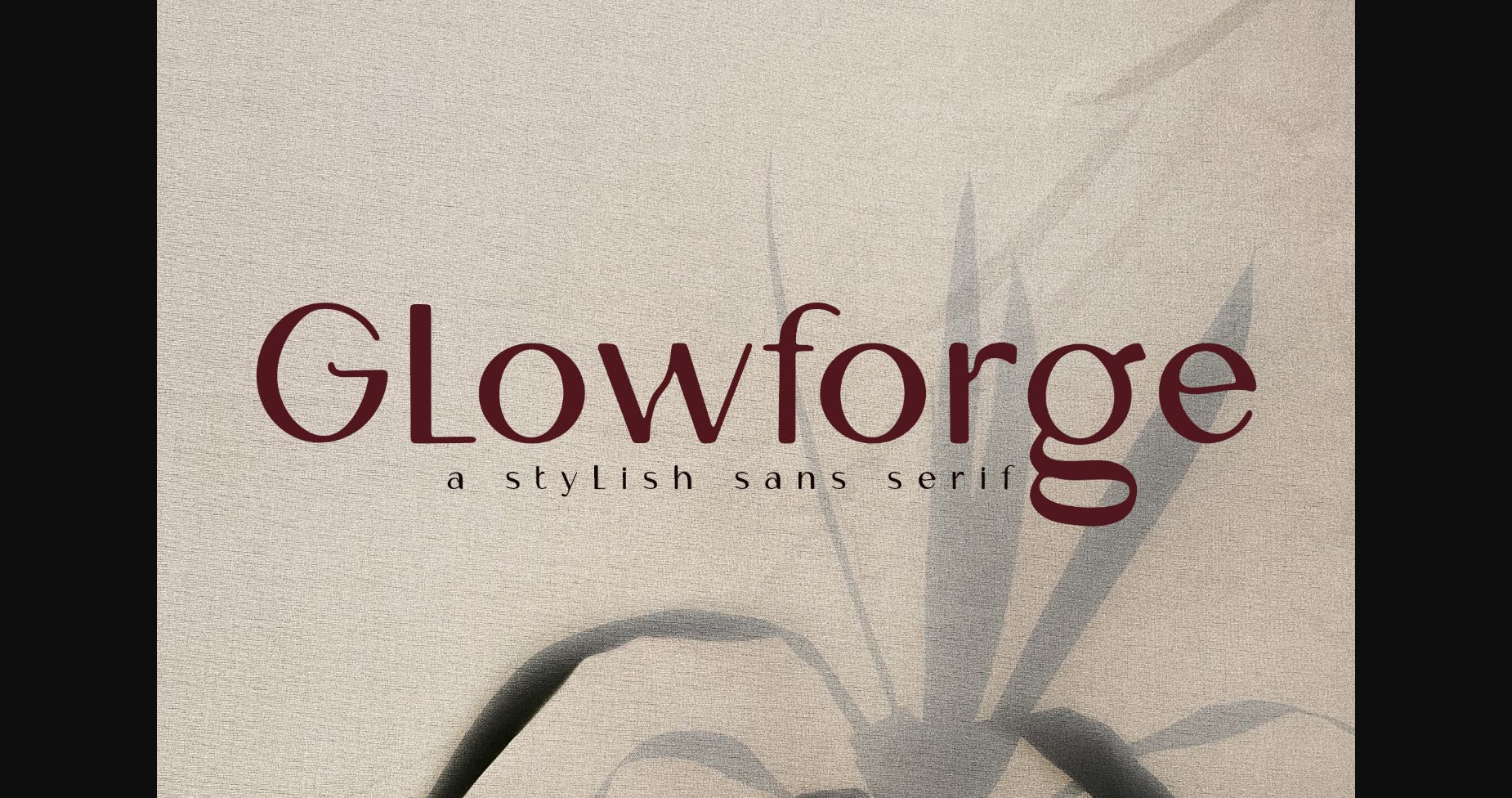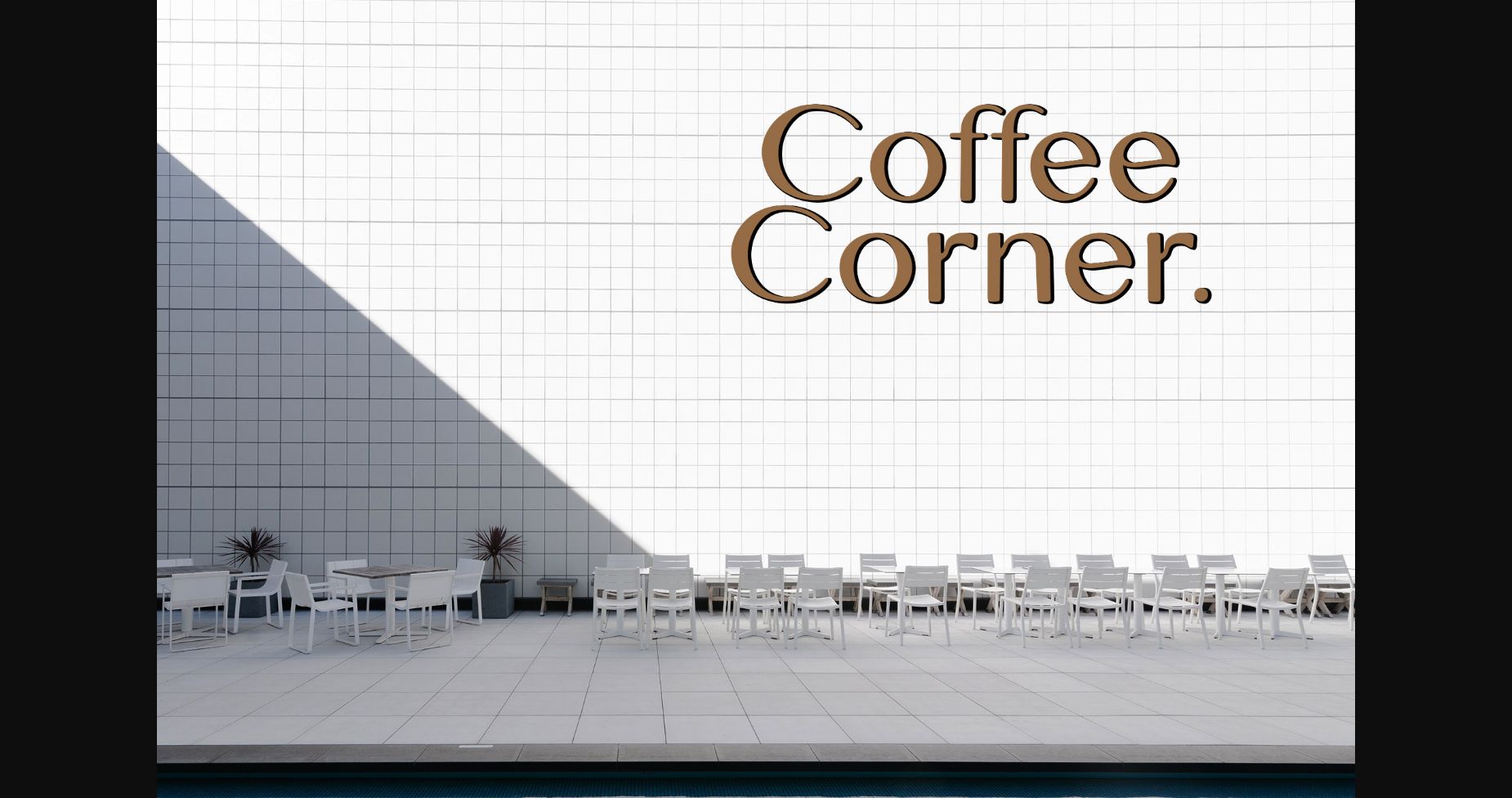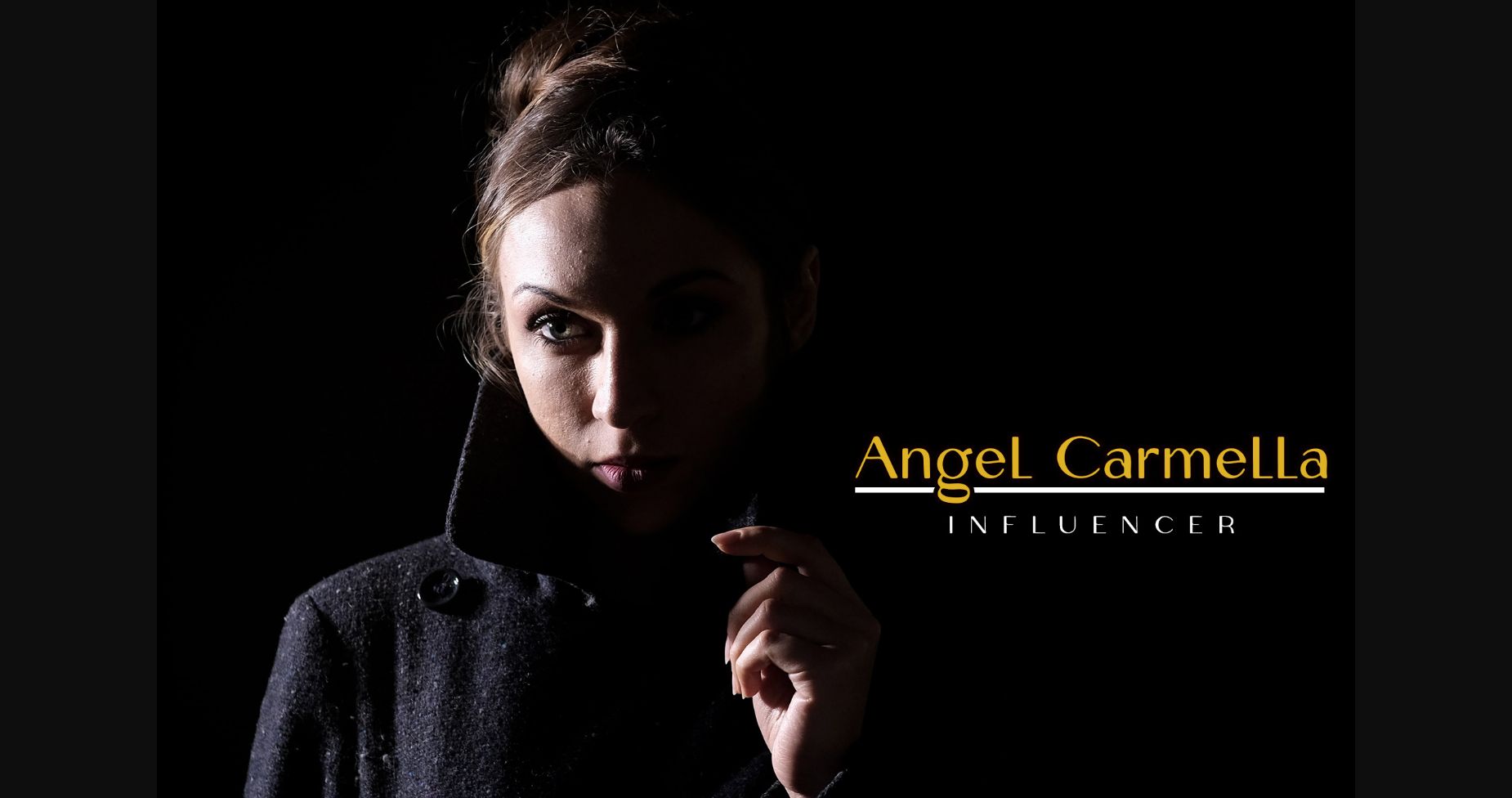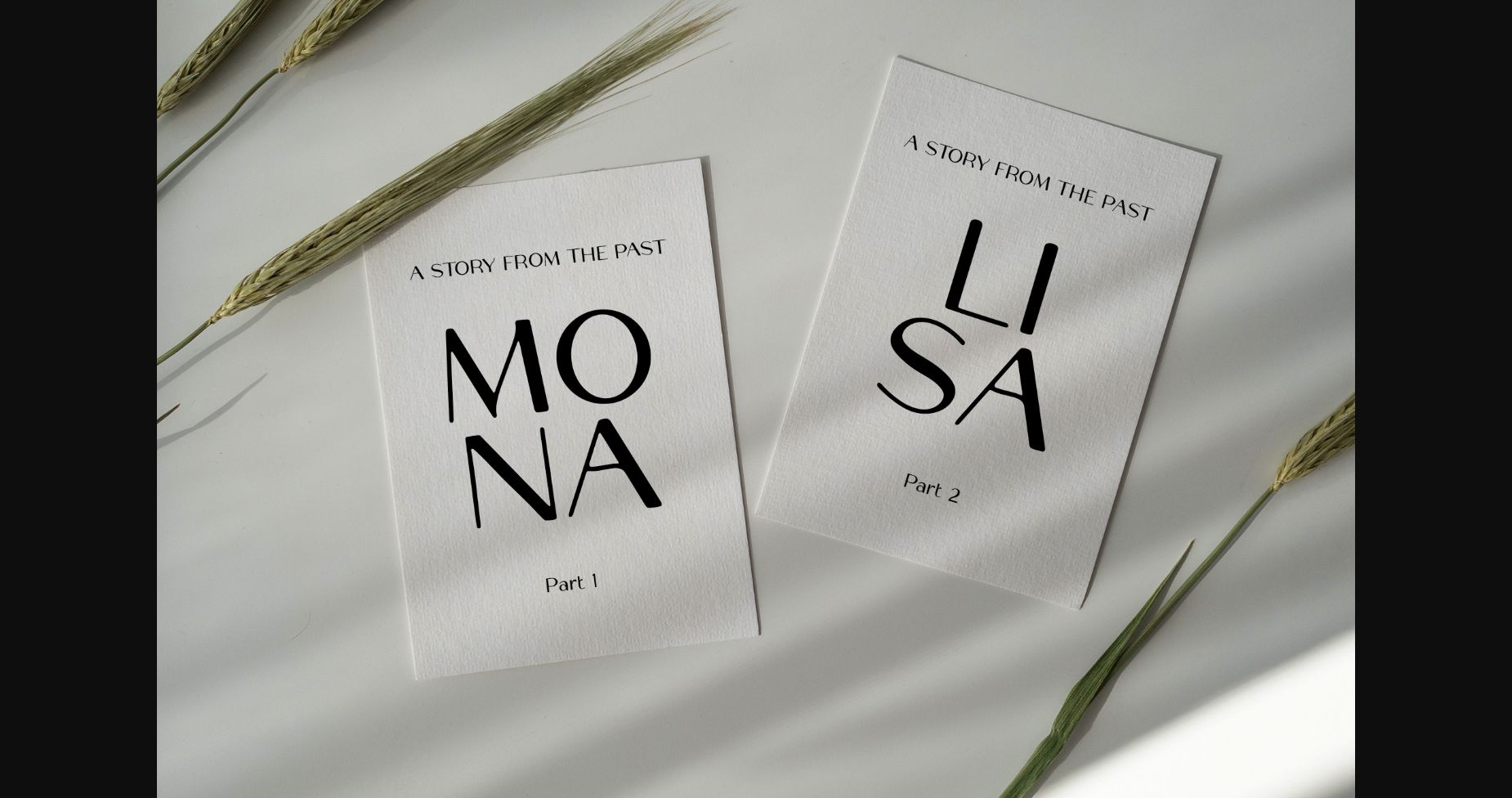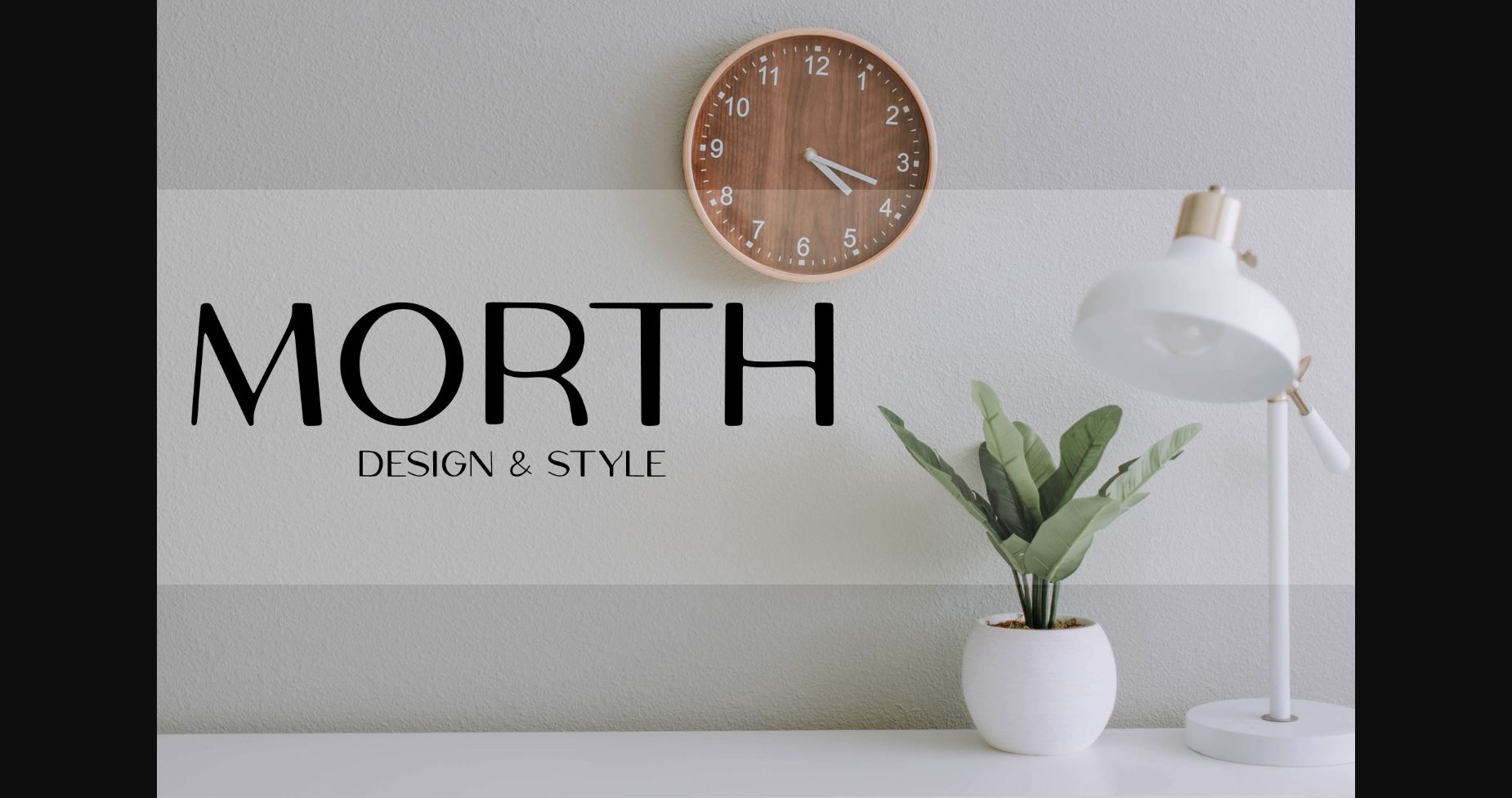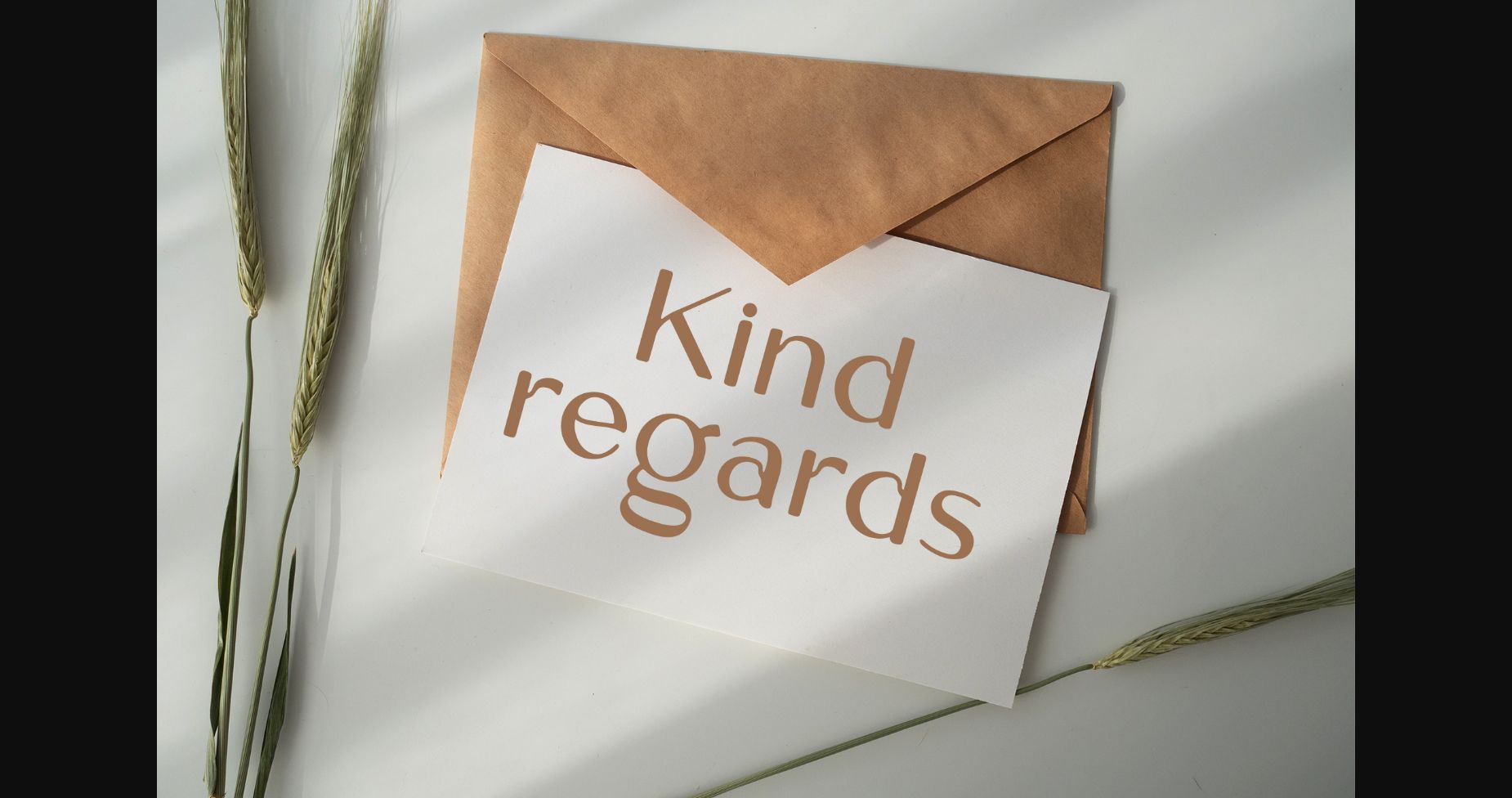
HomeSans Serif FontsGlowforge Font Sans Serif Fonts Glowforge Font FacebookXPinterestWhatsApp 1 of 9 ... Glowforge Font Poster 2... Glowforge Font Poster 3... Glowforge Font Poster 4... Glowforge Font Poster 5... Glowforge Font Poster 6... Glowforge Font Poster 7... Glowforge Font Poster 8... Glowforge Font Poster 9... About Glowforge Font Glowforge is a stylish and simple lettered sans serif font. Not too thin and not too thick, balanced and varied, Glowforge was designed to enhance the beauty of your projects. DOWNLOAD NOW People also explored After Story Font Sweet Christmas Font Sublimation Font Coconut Milk Font J-LOG Starkwood Slab Font Raster Font Milena Font Gematype Font Register Wide B 483 0 TagsGlowforge Font Previous articleSelfnode FontNext articleMs Dotty Font LEAVE A REPLY Cancel reply Comment: Please enter your comment! Name:* Please enter your name here Email:* You have entered an incorrect email address! Please enter your email address here Website: Save my name, email, and website in this browser for the next time I comment. Personal Use Free Stone Garden Personal Use Free Read more about this font The Brighton Personal Use Free Read more about this font The Relapse Personal Use Free Read more about this font Angelika Playful Personal Use Free Read more about this font BLOG Using Fonts in Digital Marketing: Tips to Strengthen Your Brand Identity In the realm of digital marketing, every visual element plays a crucial role in shaping a brand's identity, and fonts are no exception. The... 5 Fonts That Will Dominate Design Trends in 2026 Top 10 Handwritten Fonts That Elevate Your Designs Transform Your Website: Elevate Your Typography with 7 Best Web Font Generators